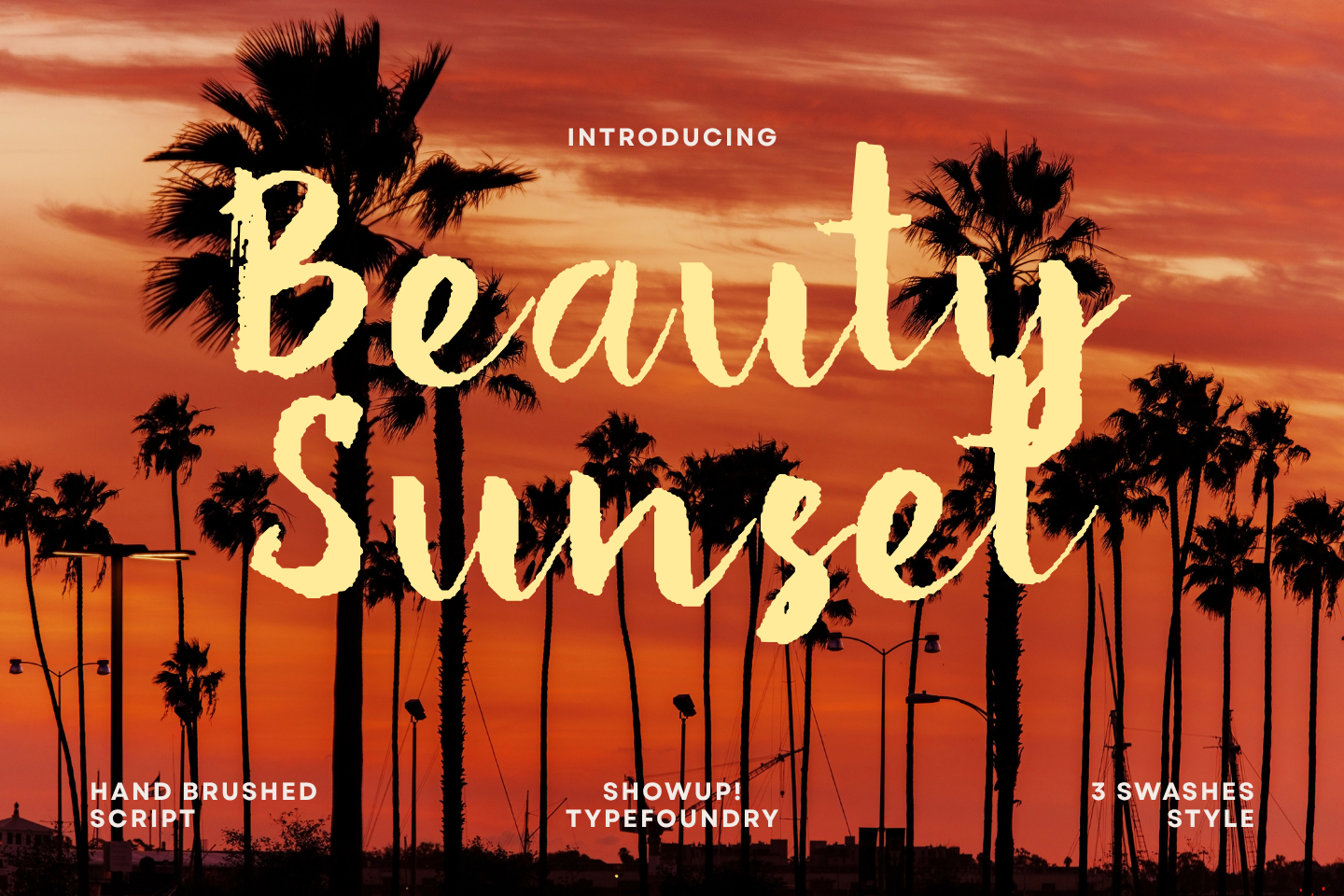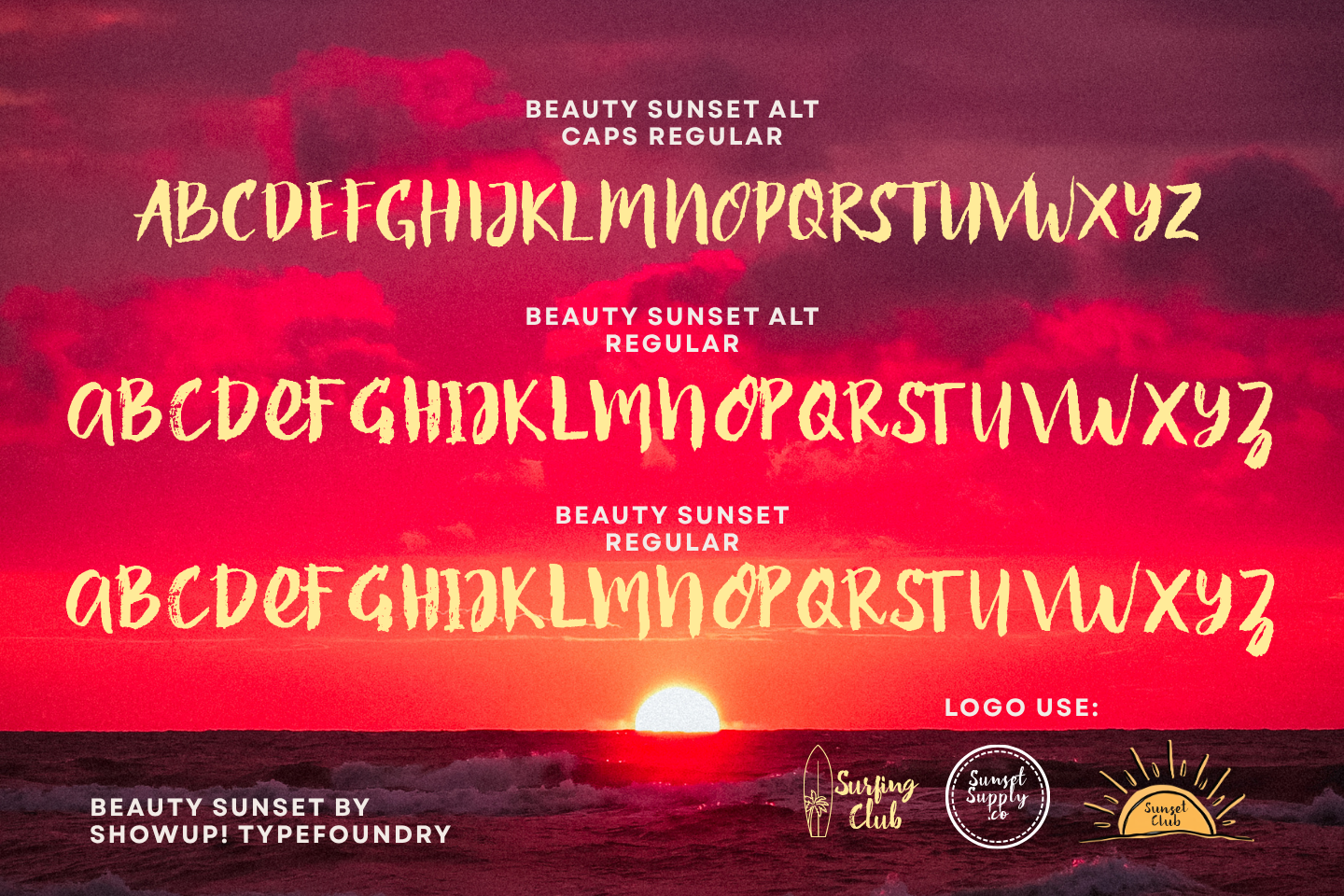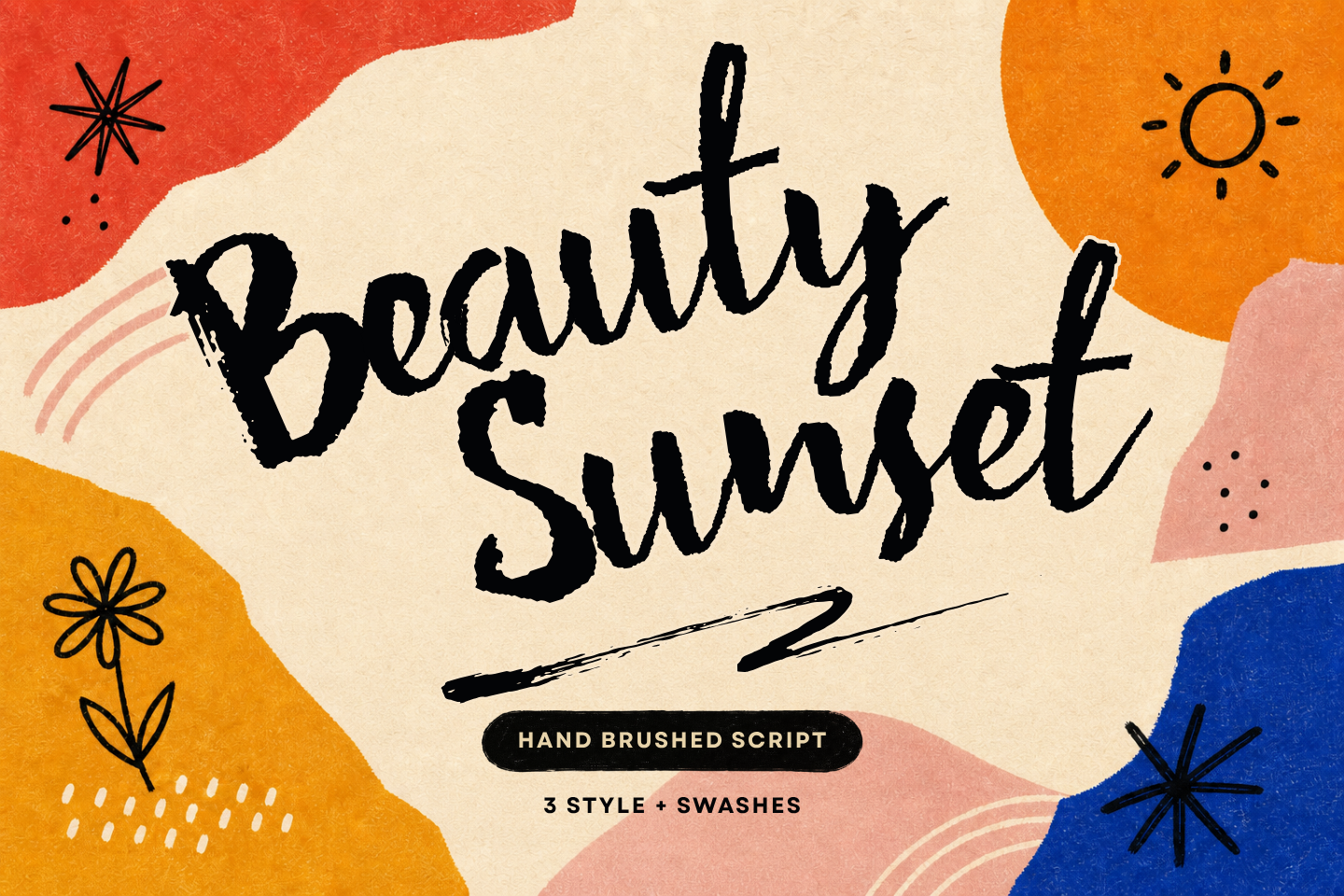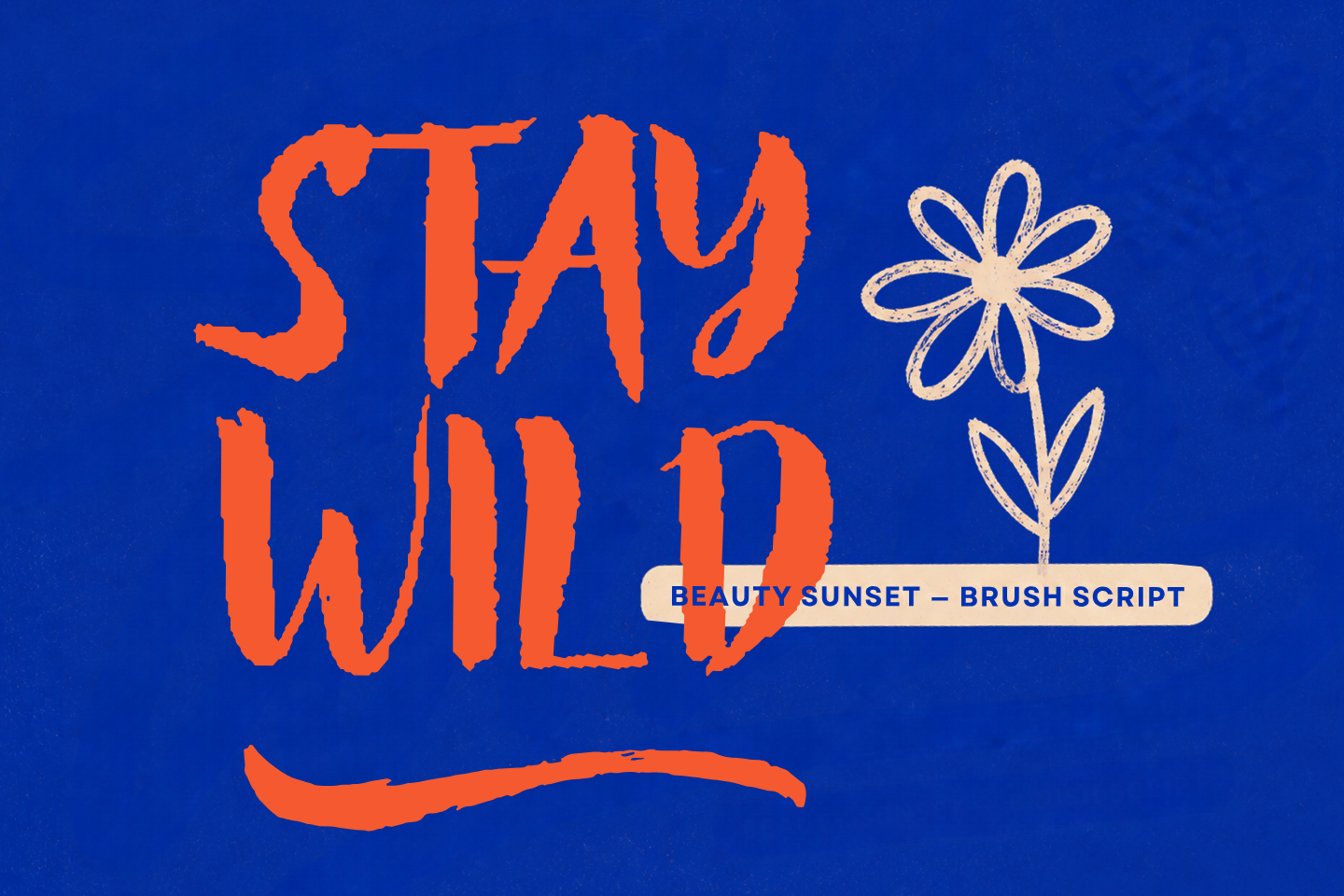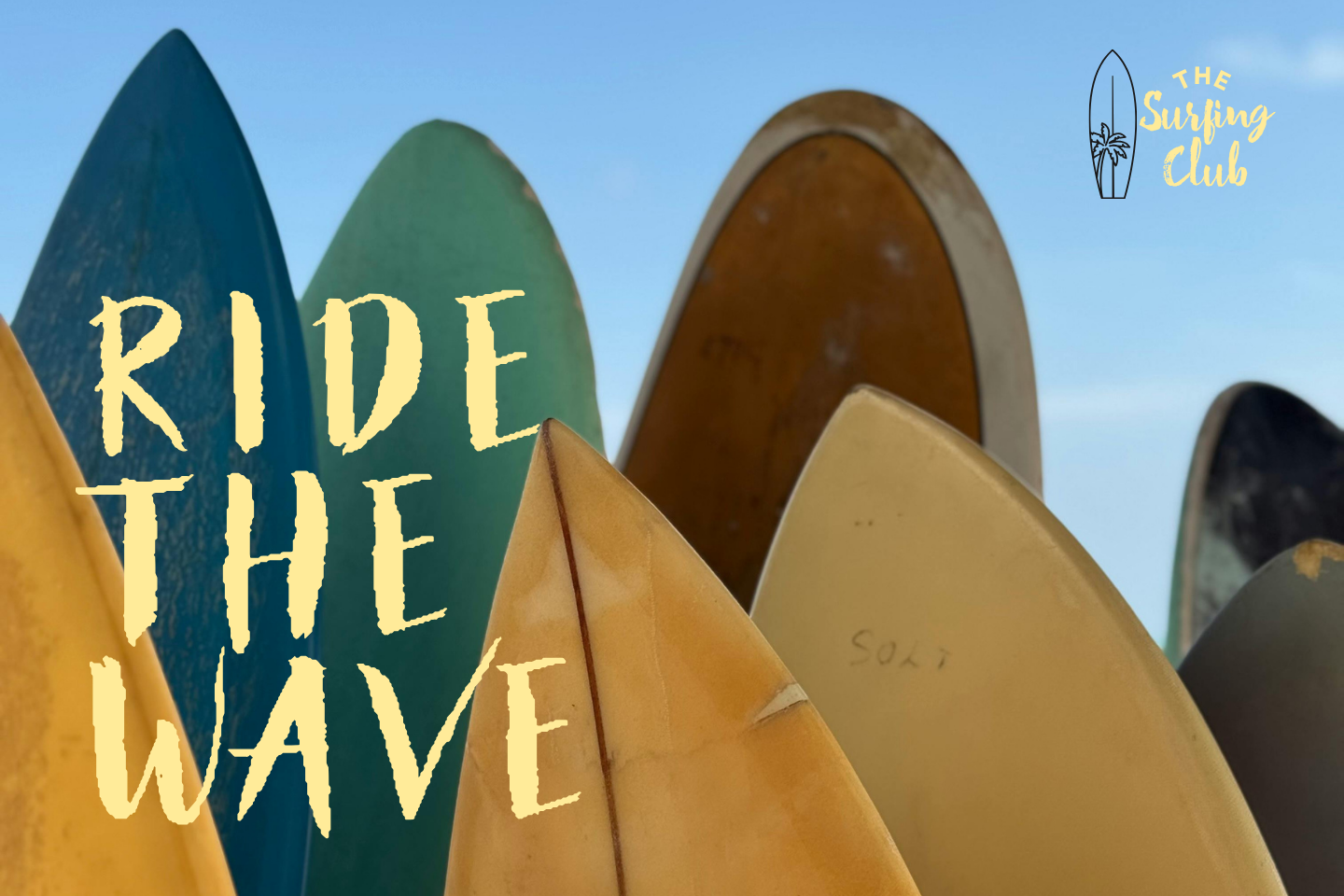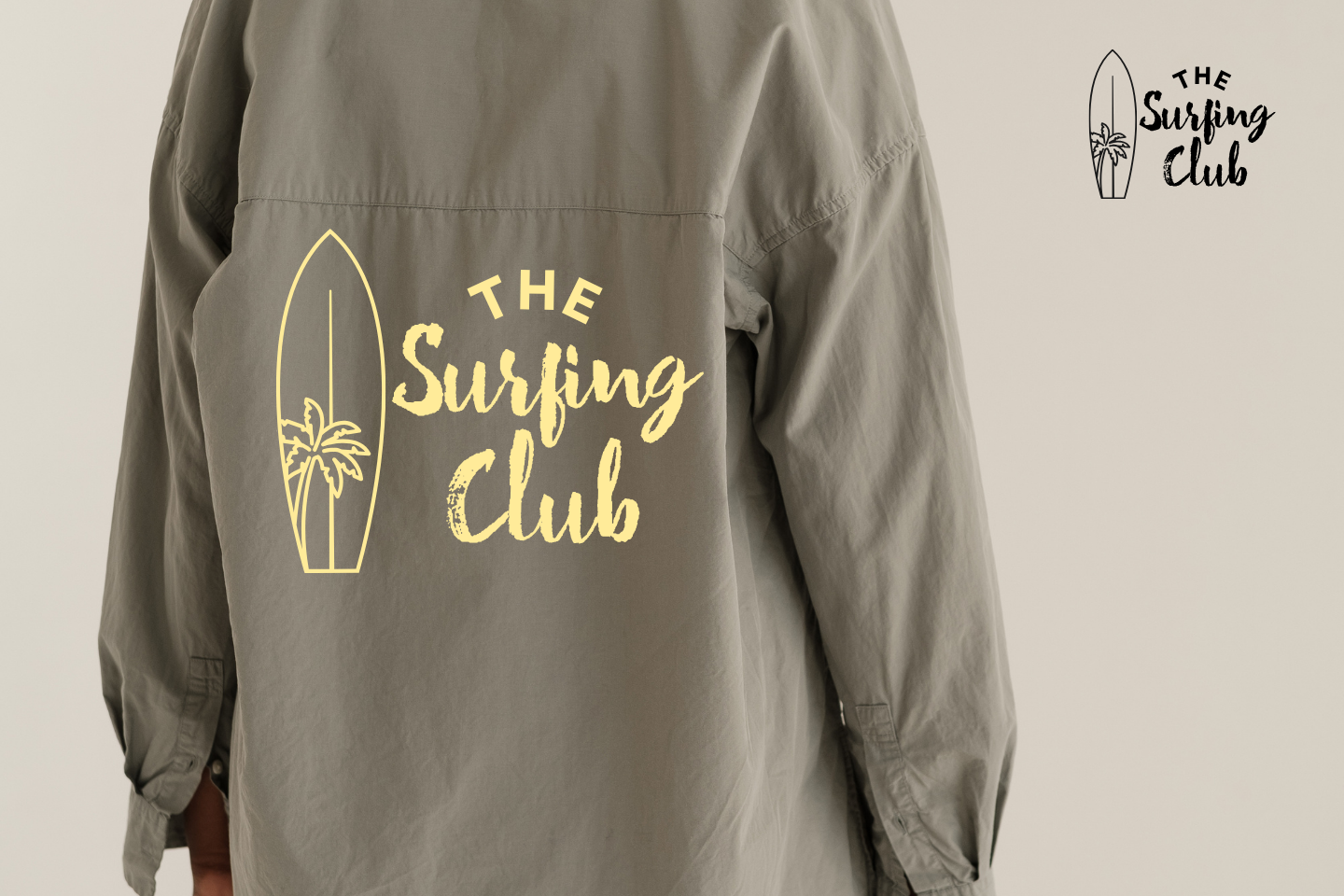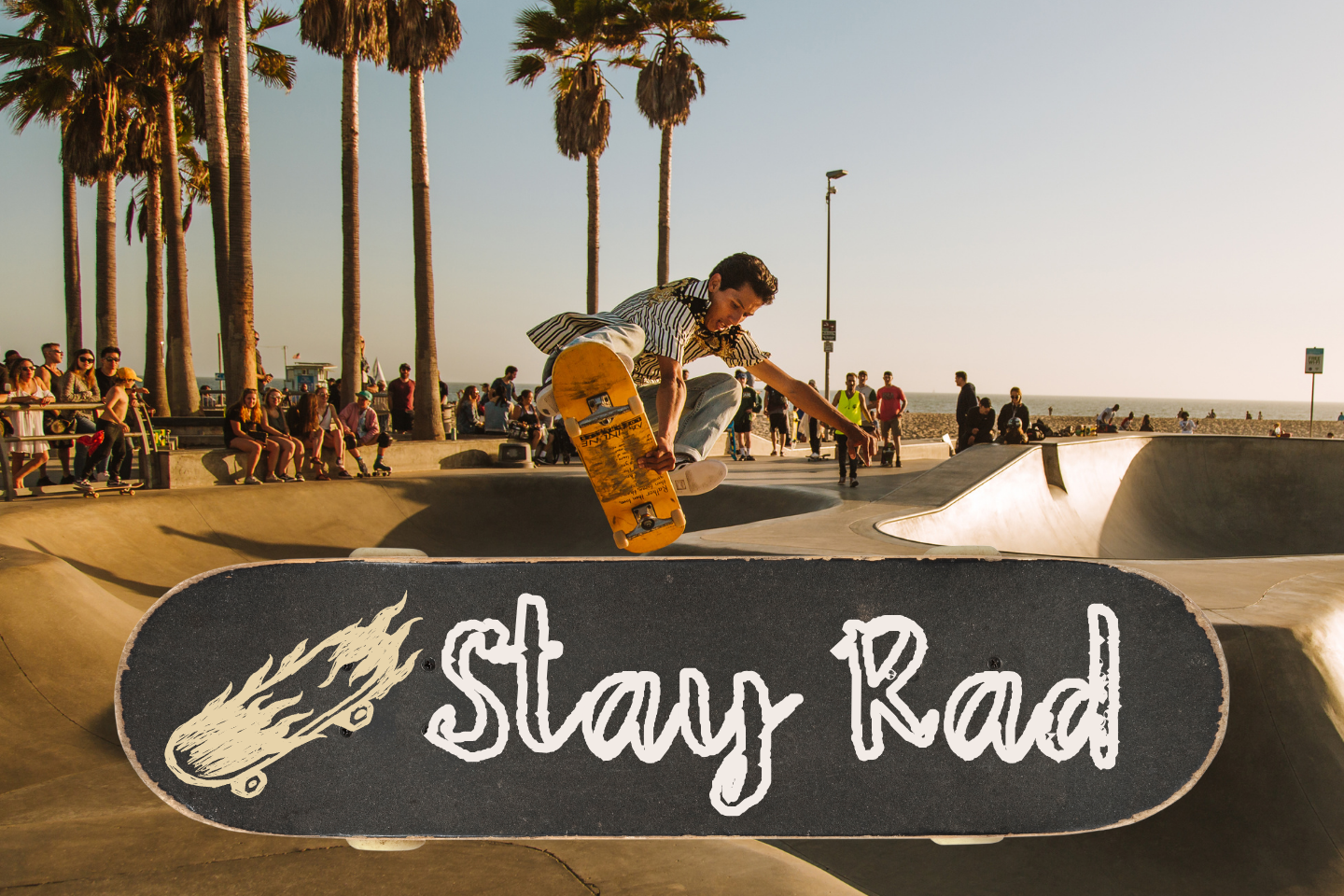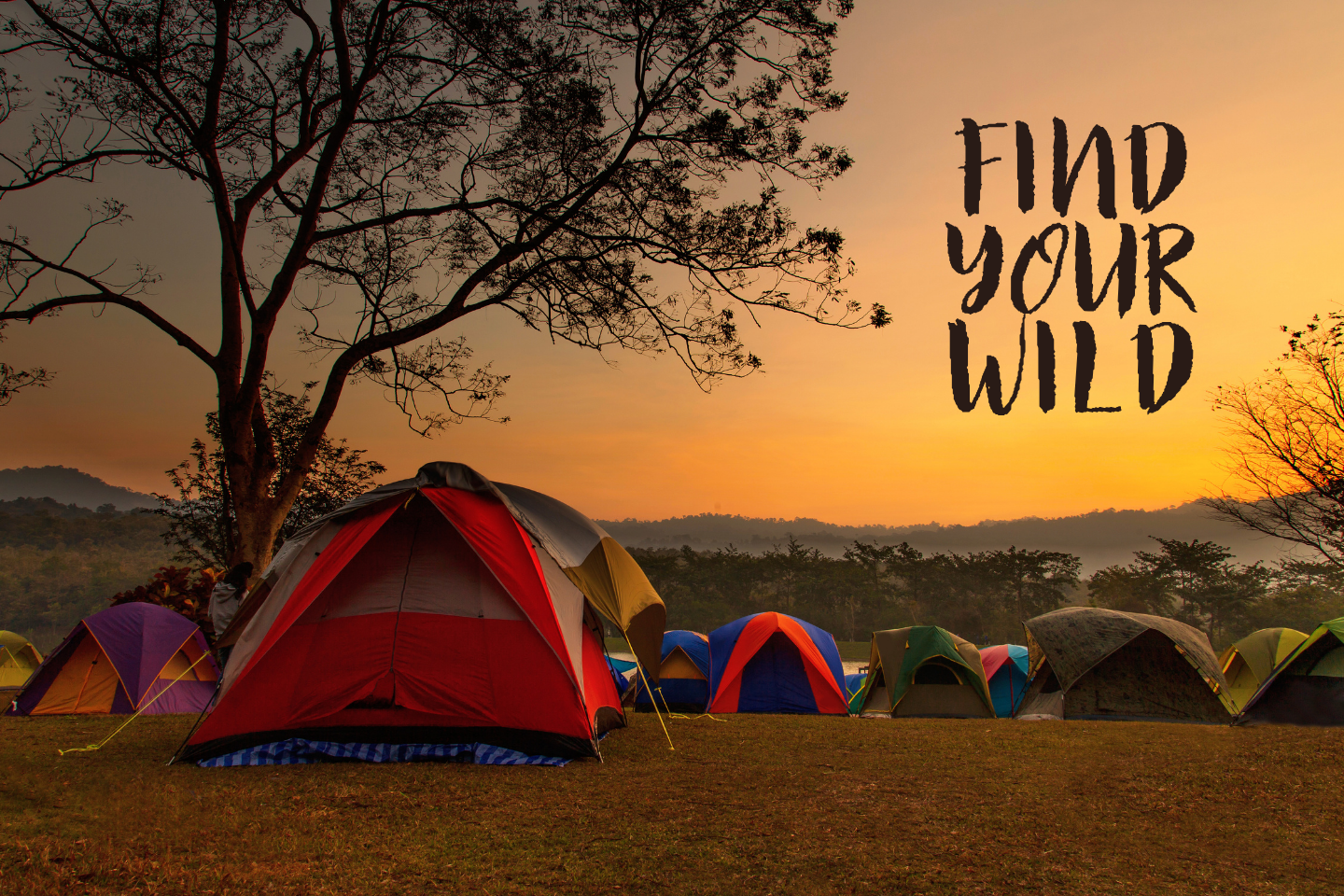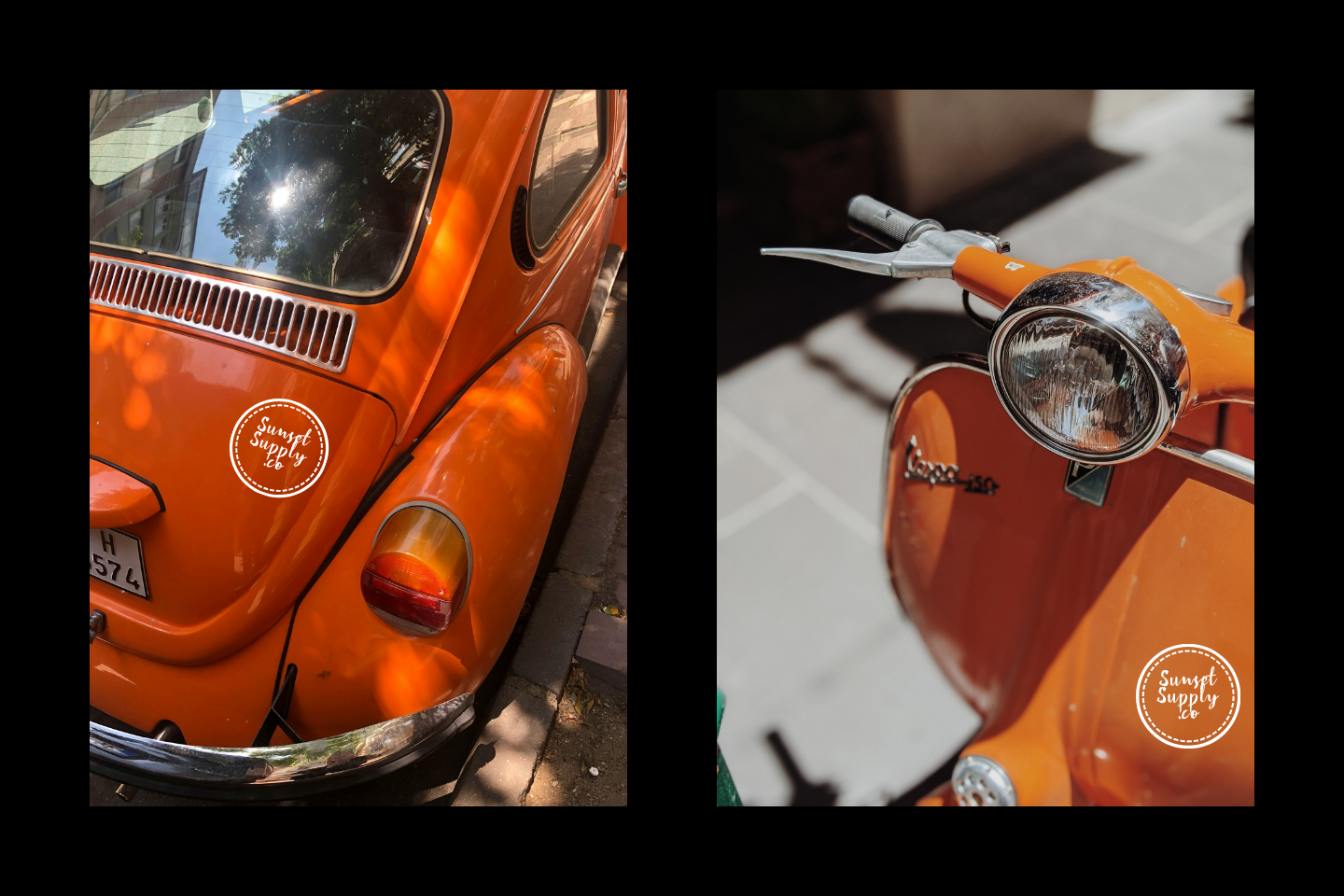
Beauty Sunset – Brush Script Font
Introducing Beauty Sunset, a handcrafted brush script font designed to deliver bold energy with a natural handwritten feel. Created using real brush strokes, this font brings an authentic and expressive character to any creative project while remaining highly readable.
Beauty Sunset includes three versatile styles and decorative swashes, making it easy to create unique lettering with a handcrafted touch. Whether you're designing a logo, apparel, branding, or social media graphics, this font helps your work stand out with confidence.
Perfect For:
• Logos & Branding
• T-Shirt Designs
• Product Packaging
• Album Covers
• Social Media Graphics
• Merchandise
• Quotes
• Signage
• Advertising
• Stickers
• Creative Headlines
Font Features:
• 3 Font Styles Included
• Beautiful Swashes